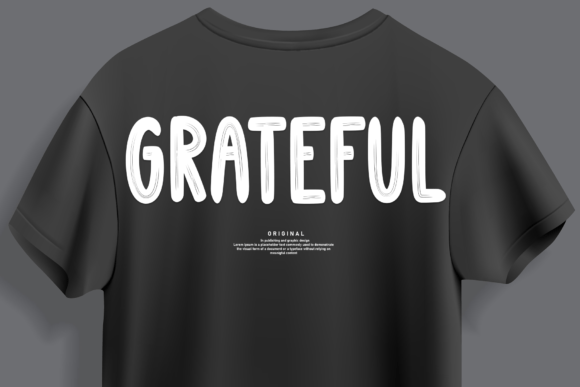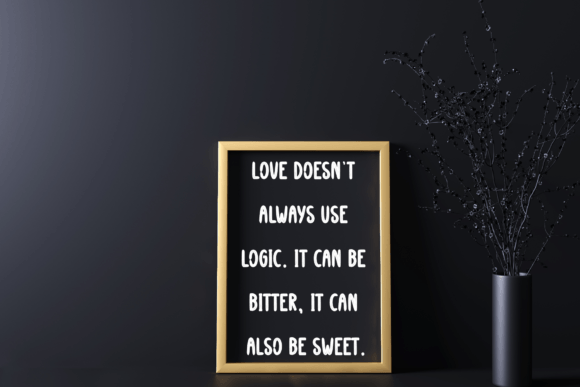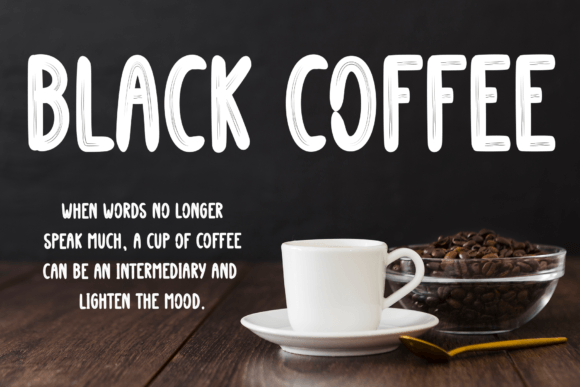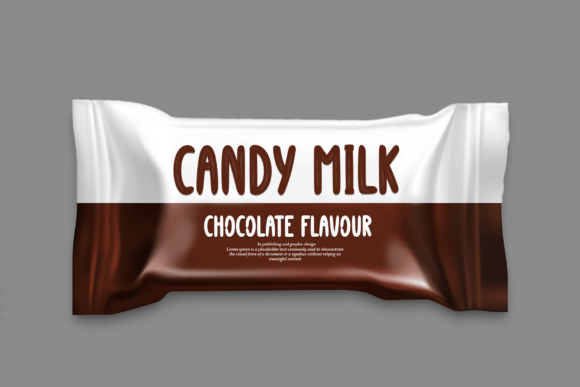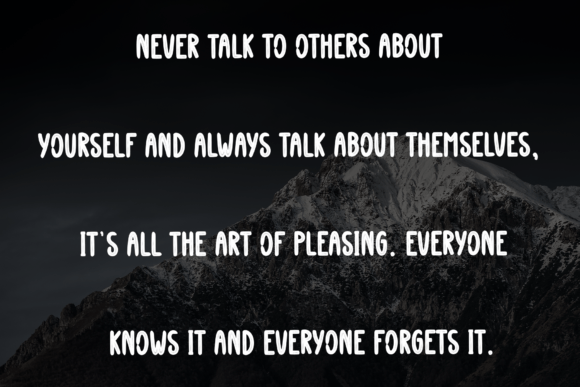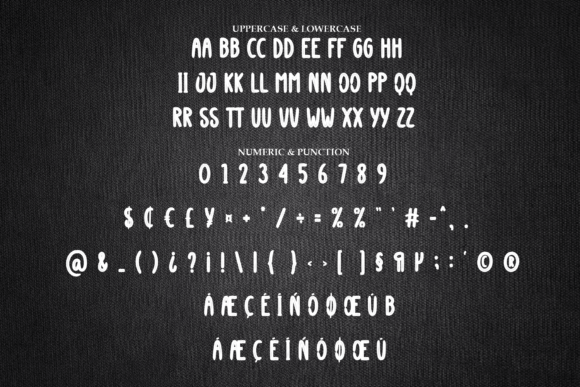
Introduction to Black Canvas Font
Have you ever stared at a blank page, feeling like the perfect design was just out of reach? That’s where the magic of the Black Canvas Font comes in – a modern handwritten script that brings your creative project to life. With its natural, stylish feel, this font is the perfect solution for designers looking to add a personalized touch to their work.
Whether you’re crafting wedding invitations, thank you cards, or logos, the Black Canvas Font is a valuable design resource that’s sure to elevate your high-quality designs. Its versatility makes it ideal for a wide range of applications, from greeting cards to business cards, and everything in between. And the best part? This font is available for free download, making it a transparent background for your creativity to shine through.
Key Features of Black Canvas Font
- Transparent background for seamless integration with any design
- Unique, modern design perfect for adding a touch of sophistication to any creative project
- Designed to be highly legible and easy to read, even at small font sizes
Honest Review: Black Canvas Font
As a designer, I’m always on the lookout for high-quality design resources to elevate my creative projects. The Black Canvas Font is one such find that has caught my attention.
What works well: ✨ The font is highly versatile and can be used for a wide range of applications, from graphic design to digital art. Its transparent background makes it easy to use on any background, and its high-quality design ensures that it looks great at any size.
- High-quality design: The font’s design is top-notch, with clean lines and a professional look.
However, there are a few limitations: ⚠️ The font may not be suitable for all types of projects, particularly those that require a bold or distressed look. Additionally, some users may find the font too minimalist.
Overall, I’m impressed with the Black Canvas Font and would definitely recommend it to designers looking for a high-quality, versatile font for their creative projects.
The Black Canvas Font is a high-quality design resource that offers a transparent background, making it perfect for creative projects that require a clean and minimalist aesthetic.
The Black Canvas Font is commonly used for creative projects that require a clean and minimalist aesthetic, such as:
- Presentation slides
- Business reports and documents